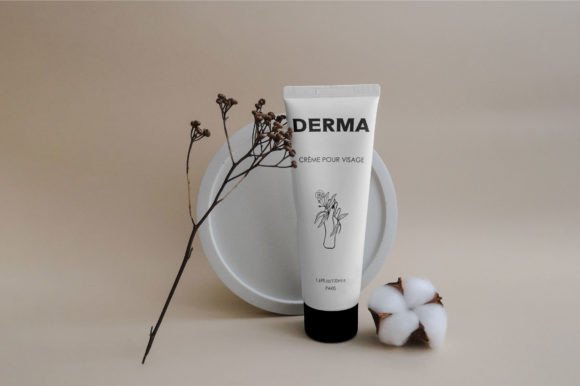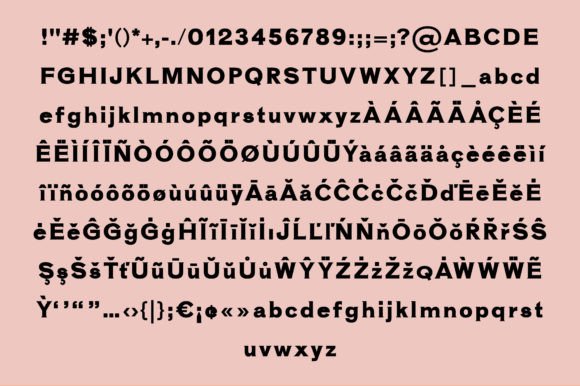
Derma
Derma: A Bold and Elegant Slab Serif Font
Derma is a bold, yet elegant slab serif font. Moreover, its minimalist style makes it suitable for a wide range of creative ideas. This versatile typeface successfully balances boldness with refinement, making it a valuable tool for various design projects.
Key Features of Derma
• Bold Design: Offers strong, impactful letterforms[3].
• Elegant Style: Maintains sophistication despite its bold nature.
• Minimalist Approach: Features clean, uncluttered design elements.
• Versatile Application: Adapts well to various creative projects.
Best Uses for Derma
Thanks to its unique characteristics, Derma works especially well for:
When using Derma in your designs, keep these tips in mind:
• Try it for headlines or short text to show off its bold yet elegant style.
• Use different sizes to balance impact with sophistication.
• Pair with lighter fonts for body text to create contrast[4].
• Let its minimalist design shine in clean layouts.
To sum up, Derma is an excellent choice for designers seeking a bold yet elegant slab serif font. Its minimalist approach makes it perfect for various creative projects. Whether you’re working on branding materials, creating headlines, or developing marketing content, Derma offers the perfect blend of strength and sophistication.
Furthermore, Derma’s unique design allows it to shine in contexts where impact meets elegance. For instance, from website headers to logo designs, this font can lift your projects with its distinctive style. Also, its bold yet refined appearance works particularly well in designs that aim to make a strong impression while maintaining elegance.
In conclusion, Derma truly captures the essence of modern slab serif typography by balancing boldness with elegance. Its versatility across different applications shows how well it can serve various creative needs. Therefore, for those wanting to add a touch of bold sophistication to their work, Derma can enhance any design with its unique style. Ultimately, it’s perfect for designers aiming to make a strong yet elegant impact across creative projects.